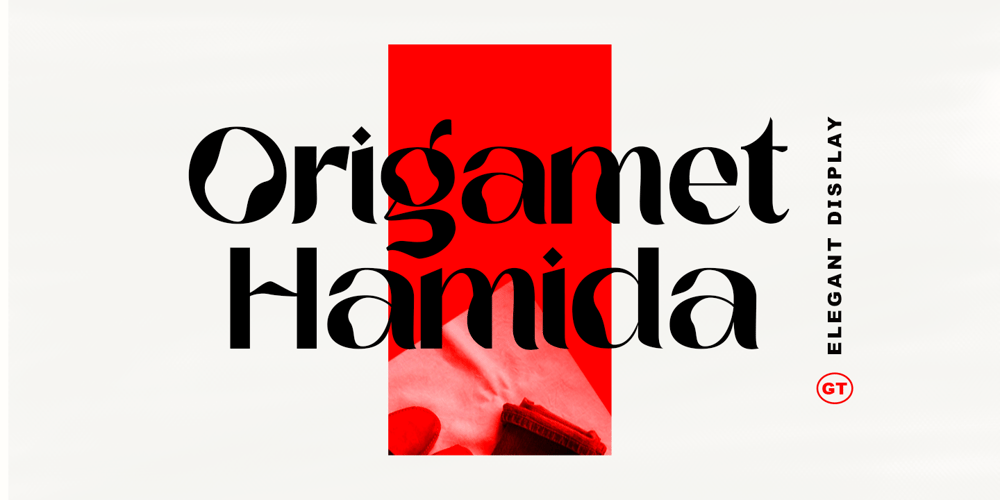
Origamet Hamida
Origamet Hamida font
Origamet Hamida Font Family was designed by khaidir and published by Gatype. Origamet Hamida contains 1 styles and family package options. Hi Everyone, we are proud to present our new font. The new natural Hamida origami with a classy and modern style makes this font look elegant, natural, stylish.Origamet Hamida is perfect for invitations, logos & branding, photography, advertising, watermarks, social media posts, product packaging, product designs, labels, wedding designs, stationery, special events or anything else needed to create a theme.